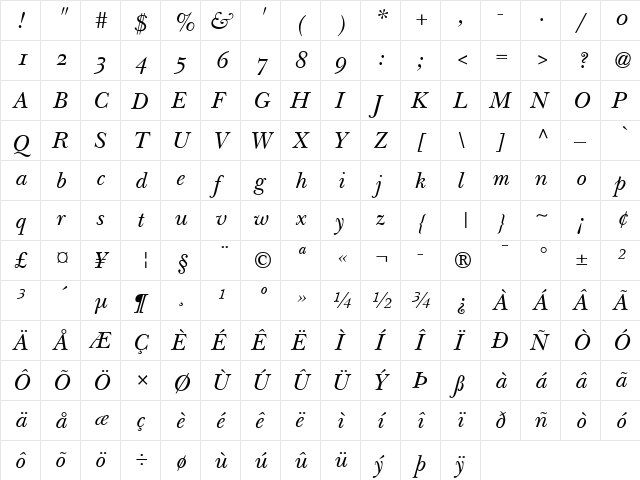
NewBaskerville SC Italic Font Preview
NewBaskerville SC Italic
Design Context for NewBaskerville SC Typeface
NewBaskerville SC takes a measured approach to typography — its balanced proportions and neutral character make it a reliable workhorse for both digital and print work. The slanted form adds forward momentum and visual energy.
Pro Tip: Use NewBaskerville SC for emphasis, pull quotes, and subheadings where its slanted energy can add rhythm to the layout.